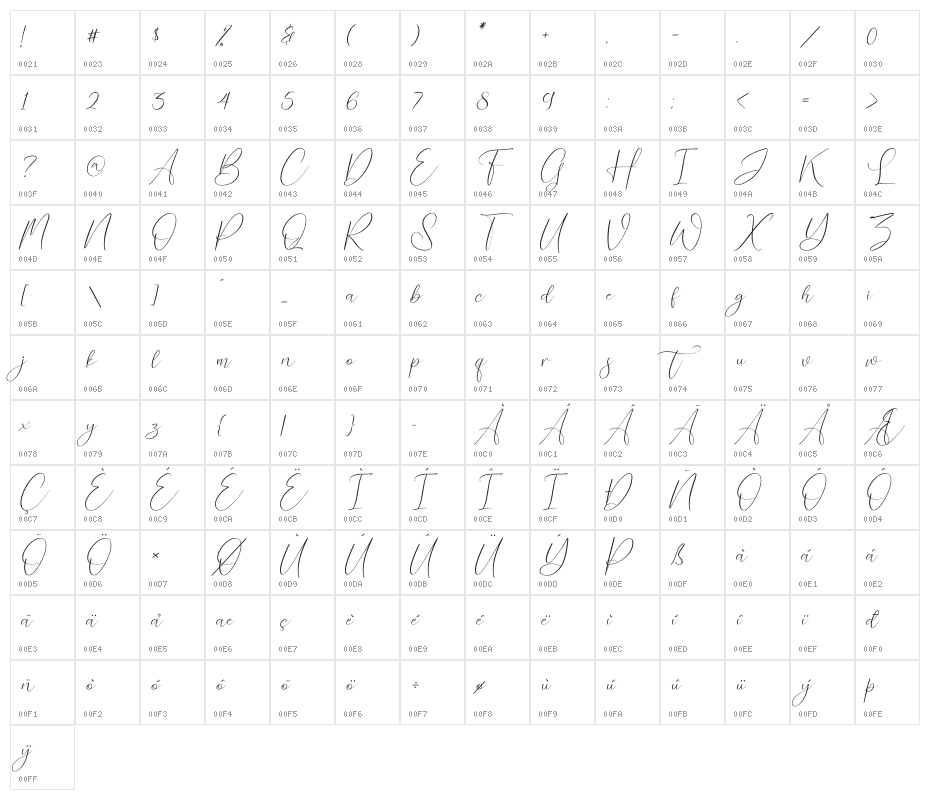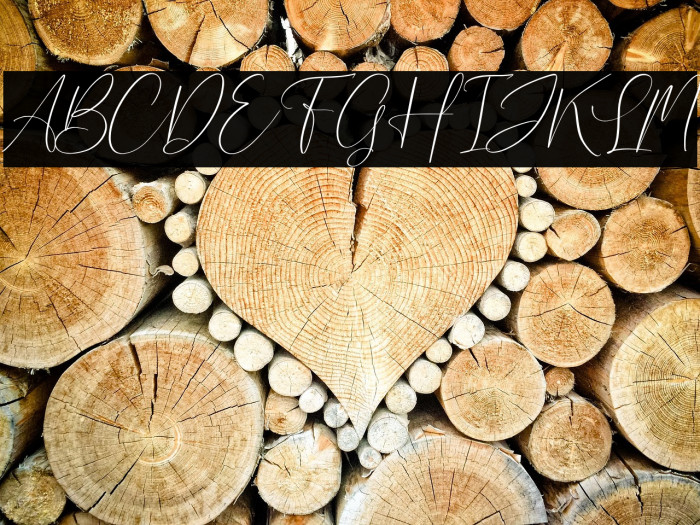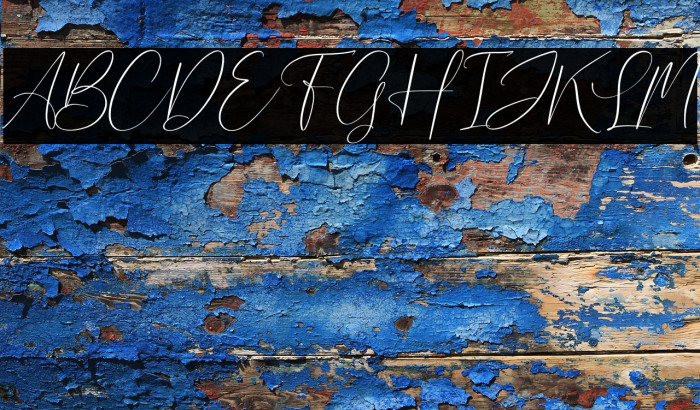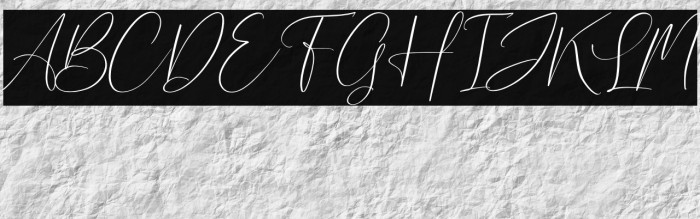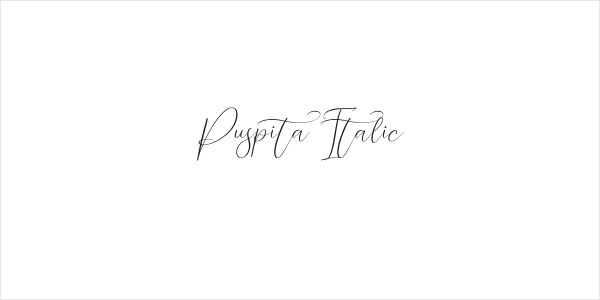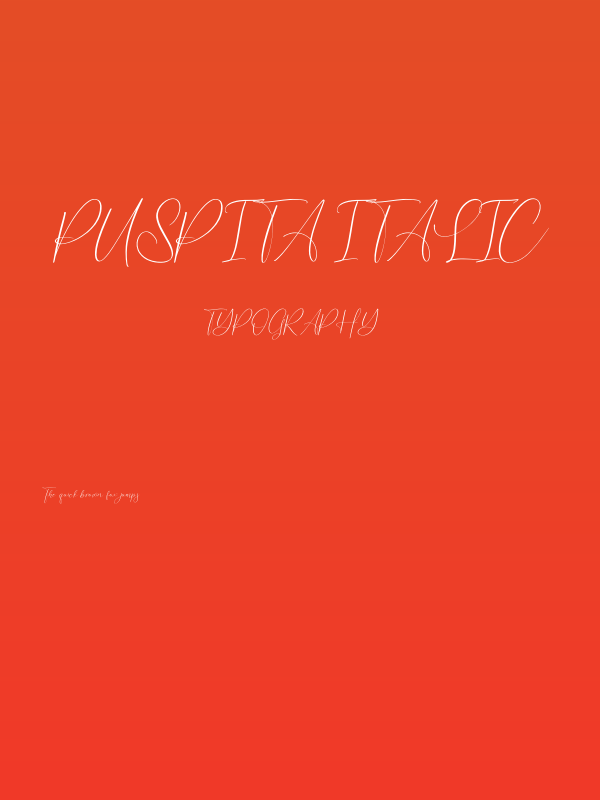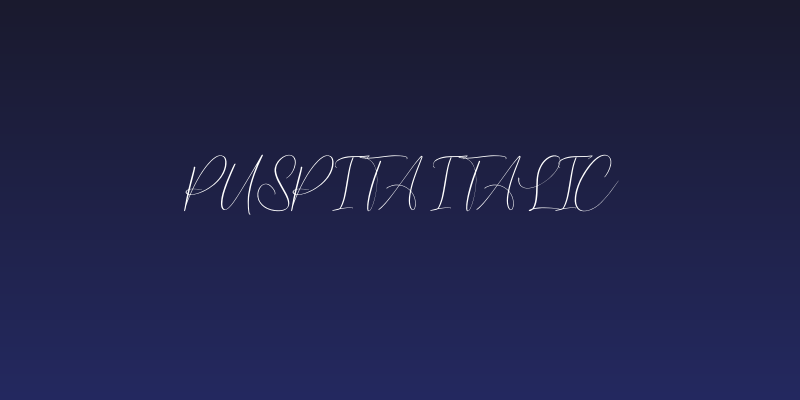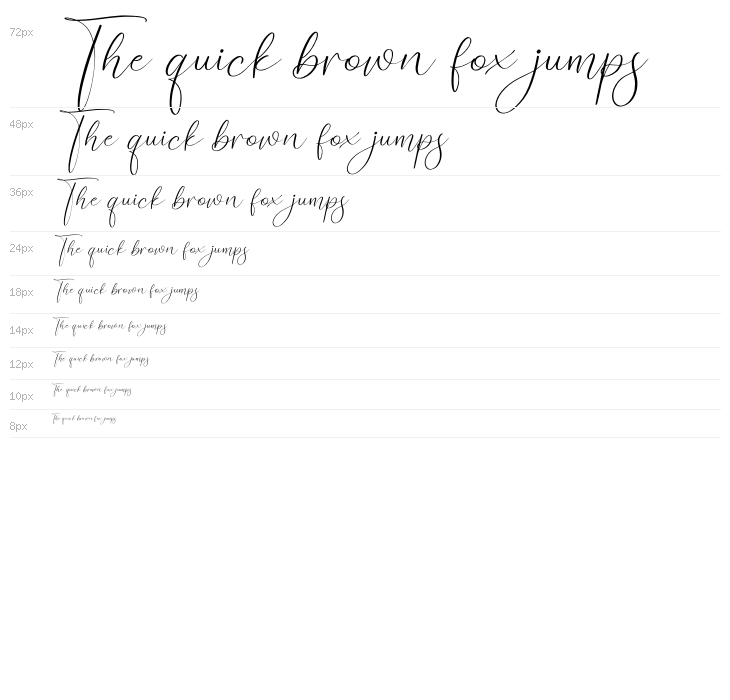
Puspita Italic Font
Puspita Italic Description
This elegant script font features flowing, cursive letterforms with a graceful and sophisticated appearance. The characters are delicately crafted with thin, sweeping strokes that convey a sense of fluidity and movement. The uppercase letters are particularly ornate, with intricate loops and flourishes that add a touch of luxury. The lowercase letters maintain a consistent style, complementing the uppercase with their own subtle curves and connections. Numbers and special characters are designed with the same attention to detail, ensuring a cohesive look across all elements. This font's overall aesthetic is both refined and artistic, making it suitable for a variety of creative applications.
| Proposed Projects | Ideal for wedding invitations, elegant branding, greeting cards, and luxury packaging. |